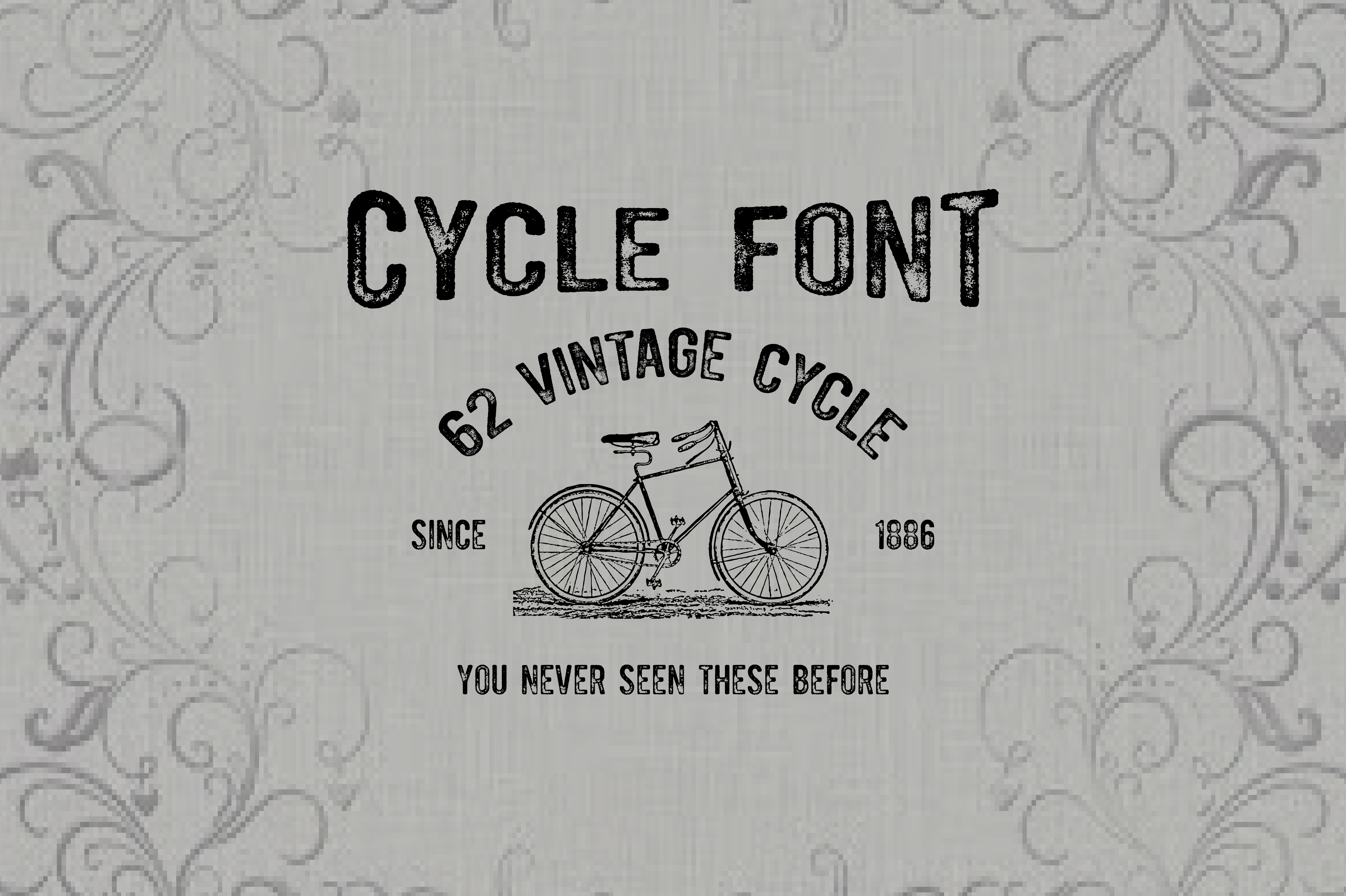
We made this font by selecting from our premium collection of 209 vintage cycle which you can find here
This font have 62 our hand pick cycles and you will like to have this in your collection.